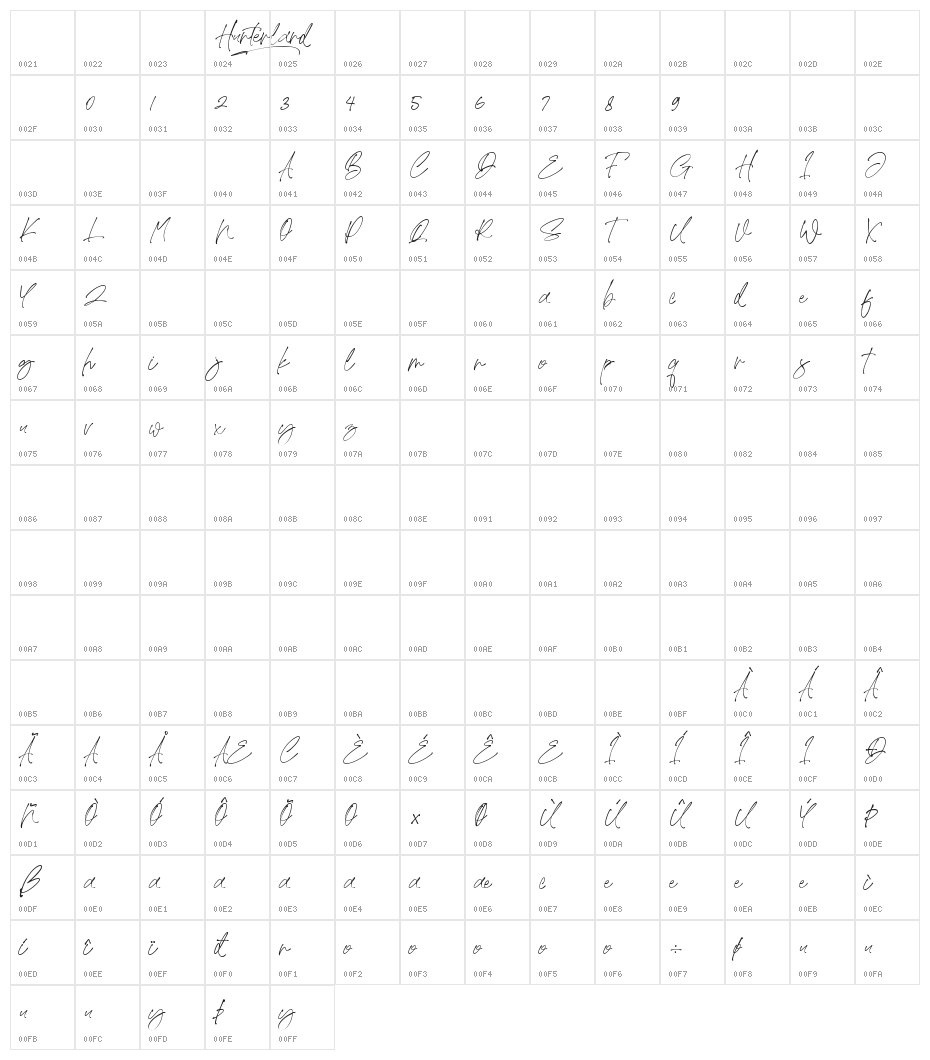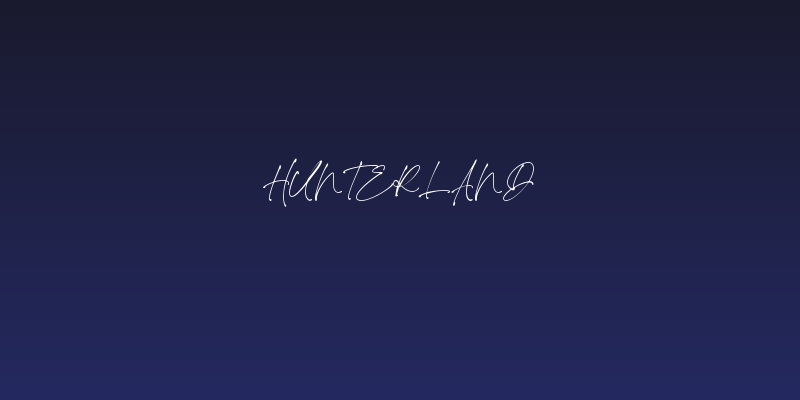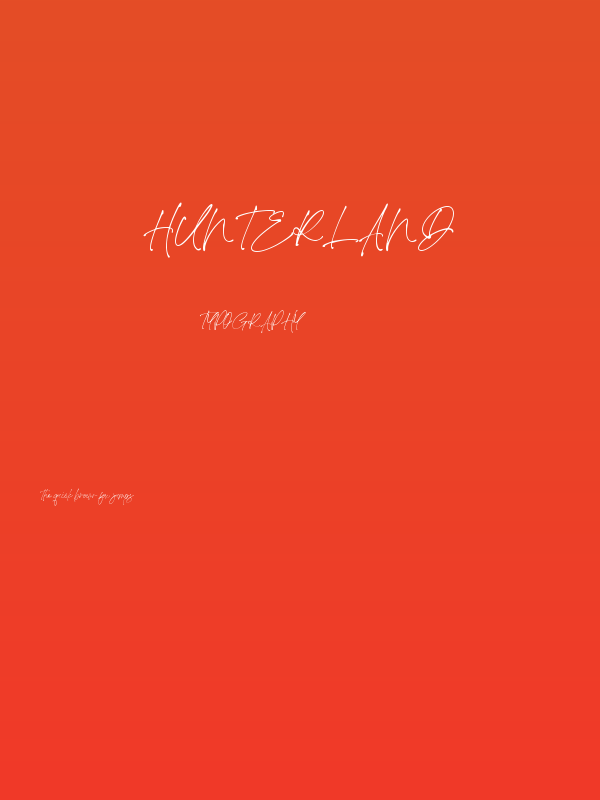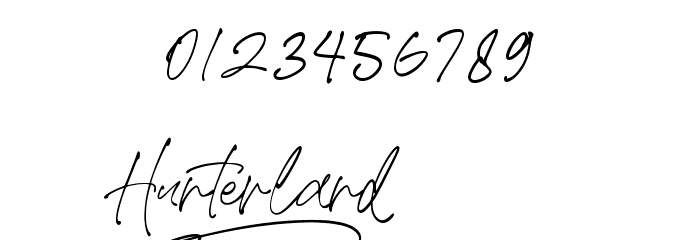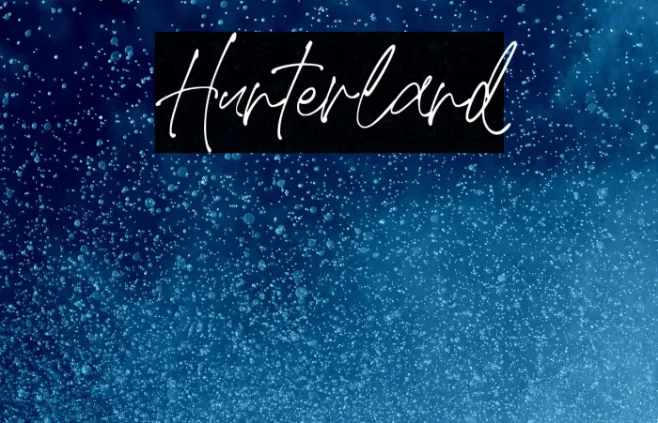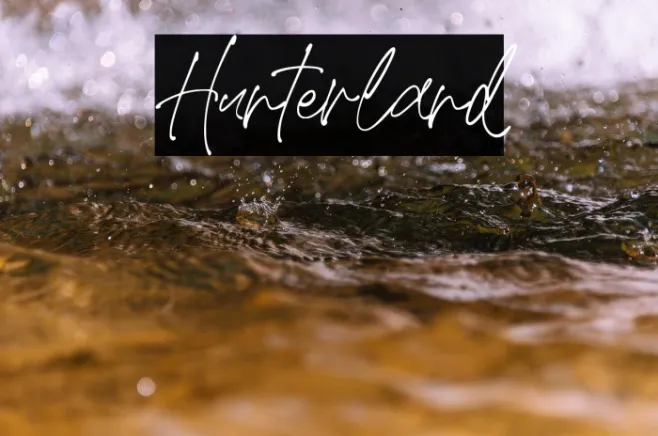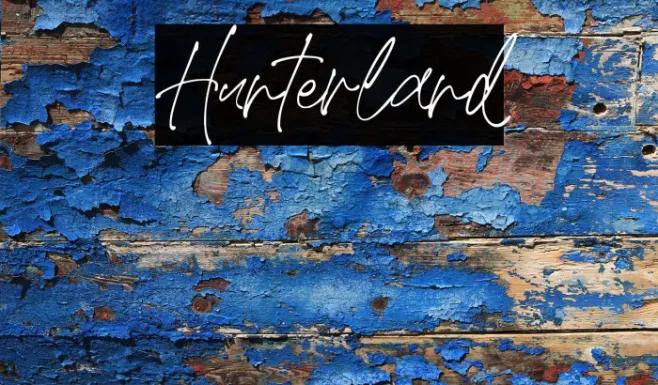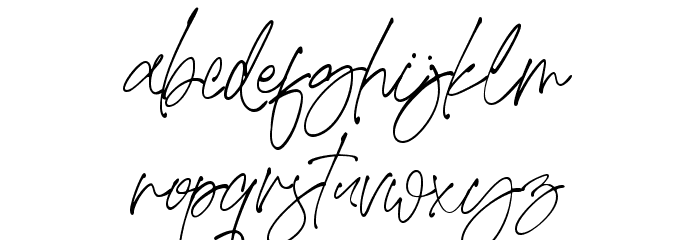
Hunterland Font
Hunterland Description
This font exudes a sense of elegance and fluidity, characterized by its cursive, handwritten style. The letters are connected with smooth, flowing strokes that give it a personal and artistic touch. The uppercase letters are bold and prominent, while the lowercase letters maintain a consistent flow, enhancing readability. The numbers and special characters are crafted with the same attention to detail, ensuring a cohesive look throughout. This font is perfect for projects that require a personal, yet sophisticated touch, such as invitations, greeting cards, or branding materials.
| Overall Style | Elegant, Artistic |
| Proposed Projects | Ideal for wedding invitations, personal branding, greeting cards, and artistic projects. |